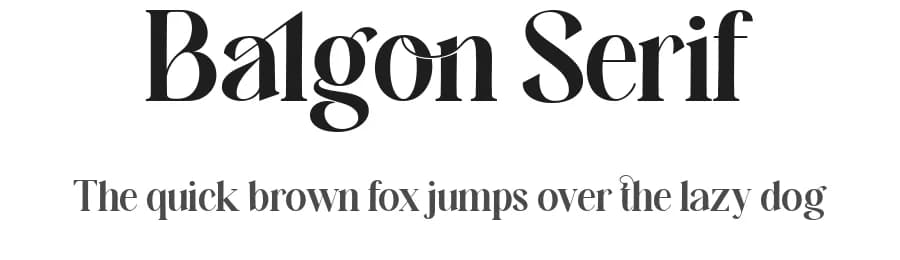
About Balgon Serif Font
Balgon Serif Specifications
| Font Family | Balgon Serif |
| Full Name | Balgon Serif Regular |
| Glyph Count | 335 glyphs |
| Designer | Typehill |
Balgon Serif Font is a versatile serif font that works for both headings and body text. Pair it with a contrasting sans-serif or slab serif font to add visual interest and a clear distinction between titles and body copy.
Balgon Serif Font